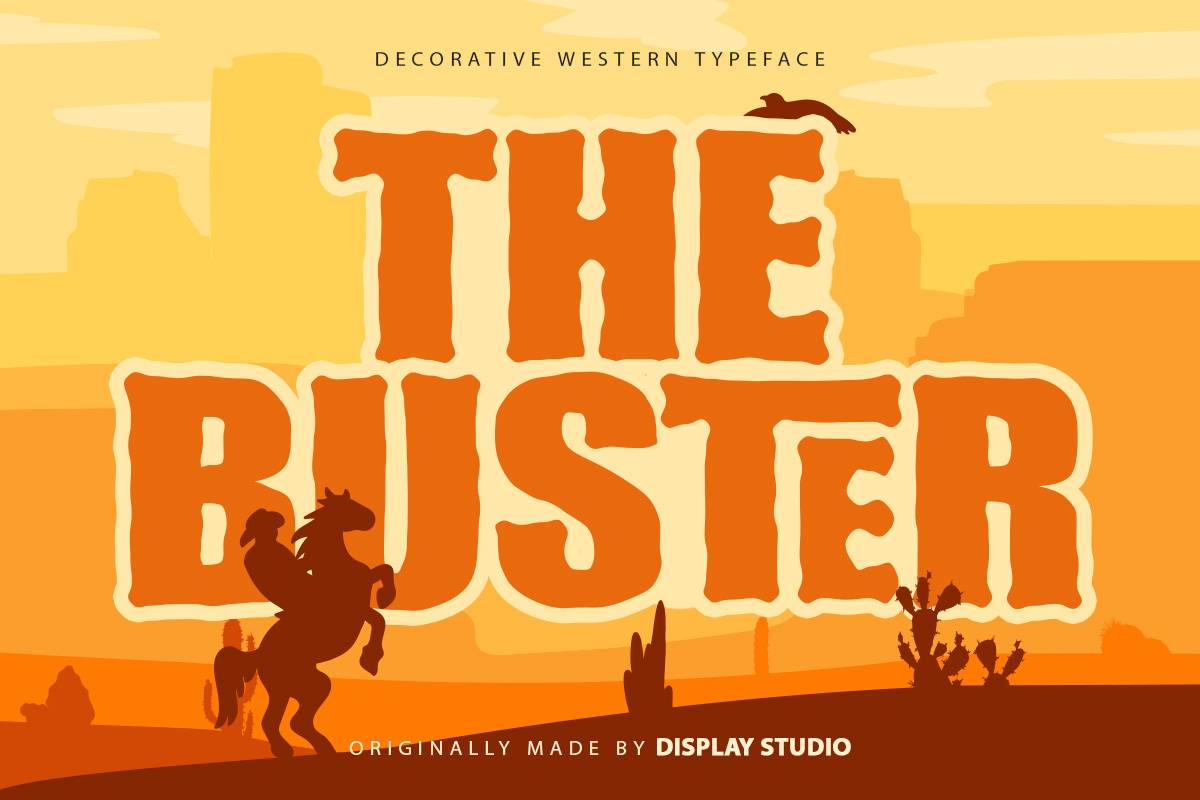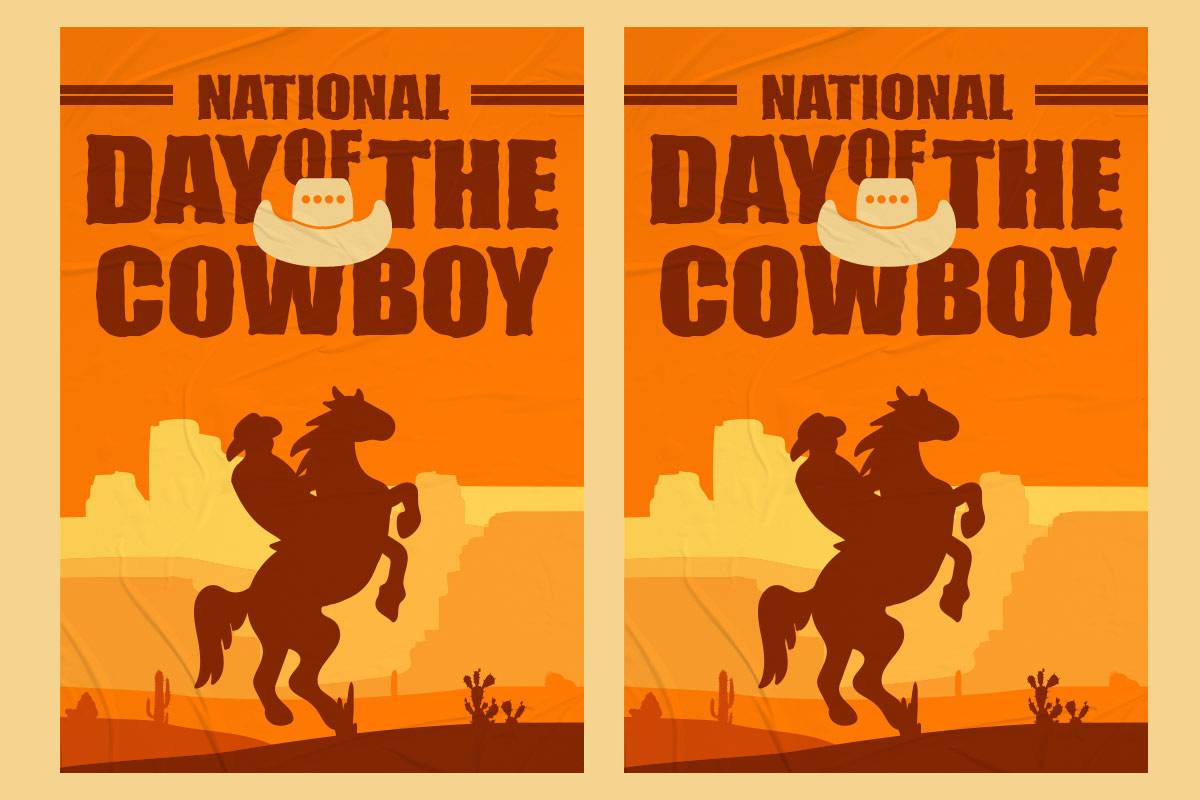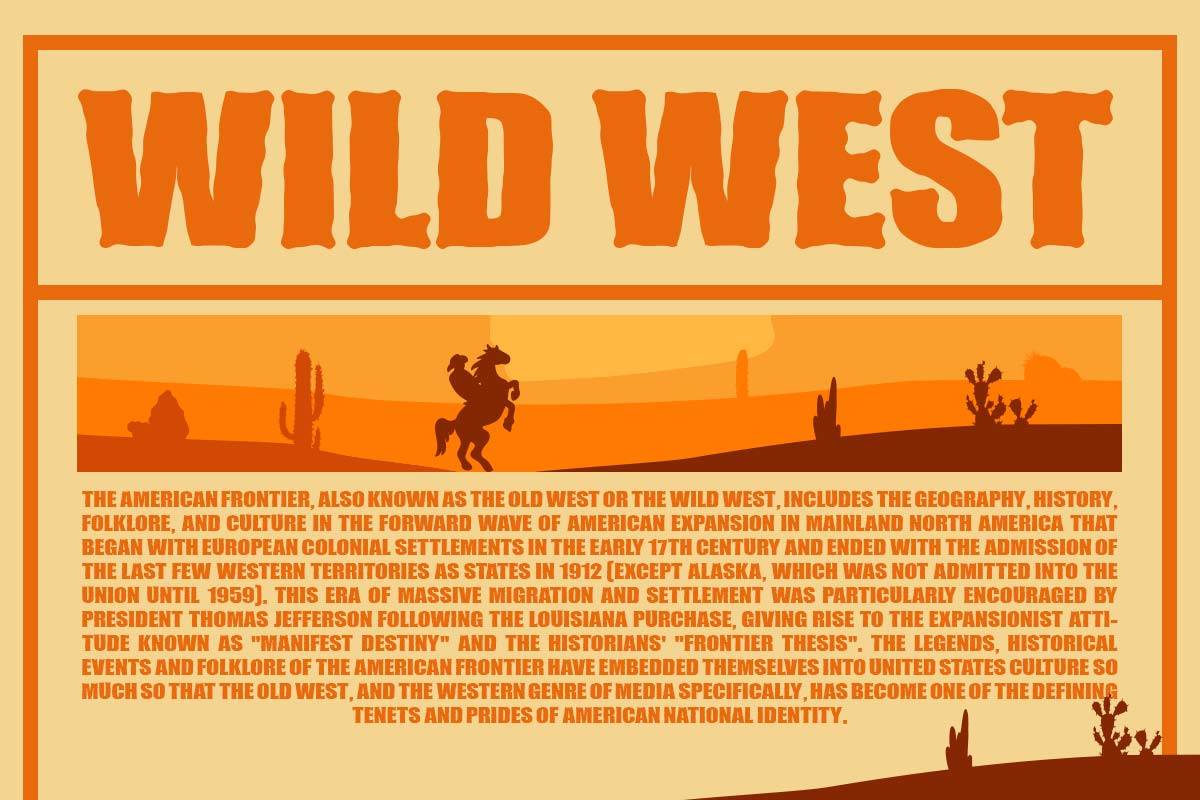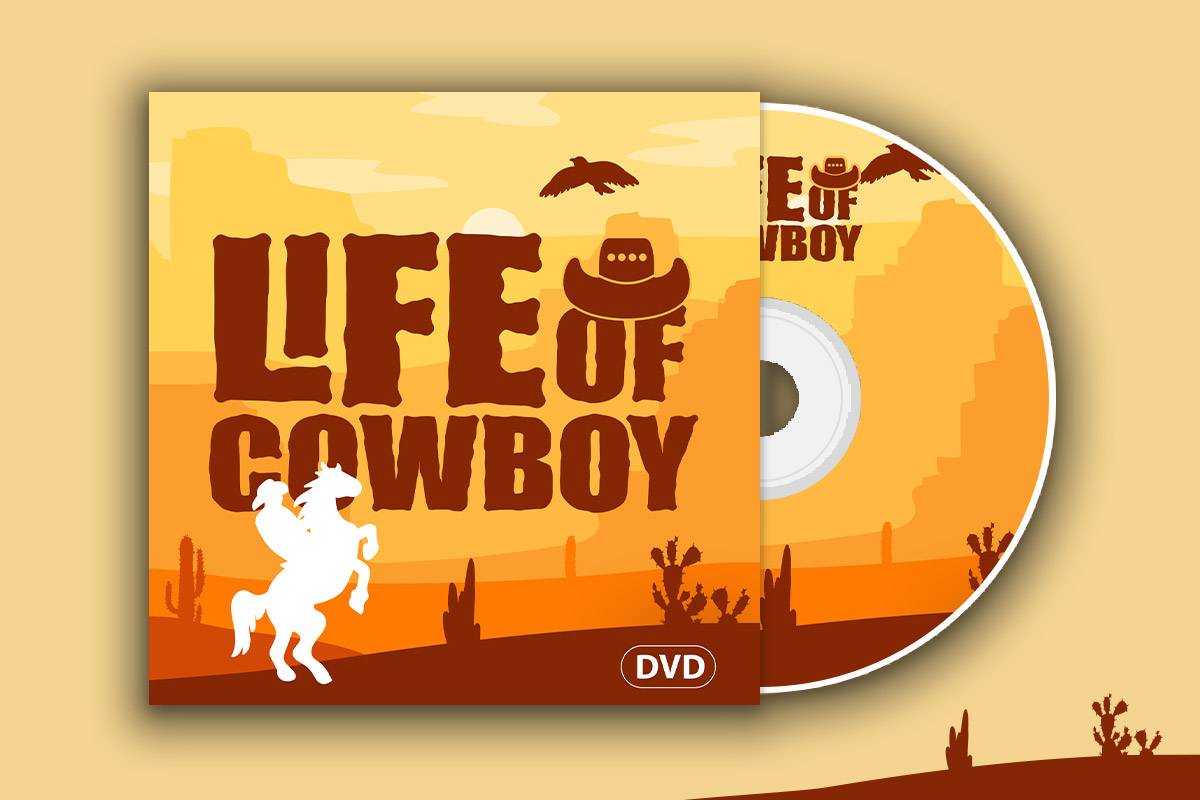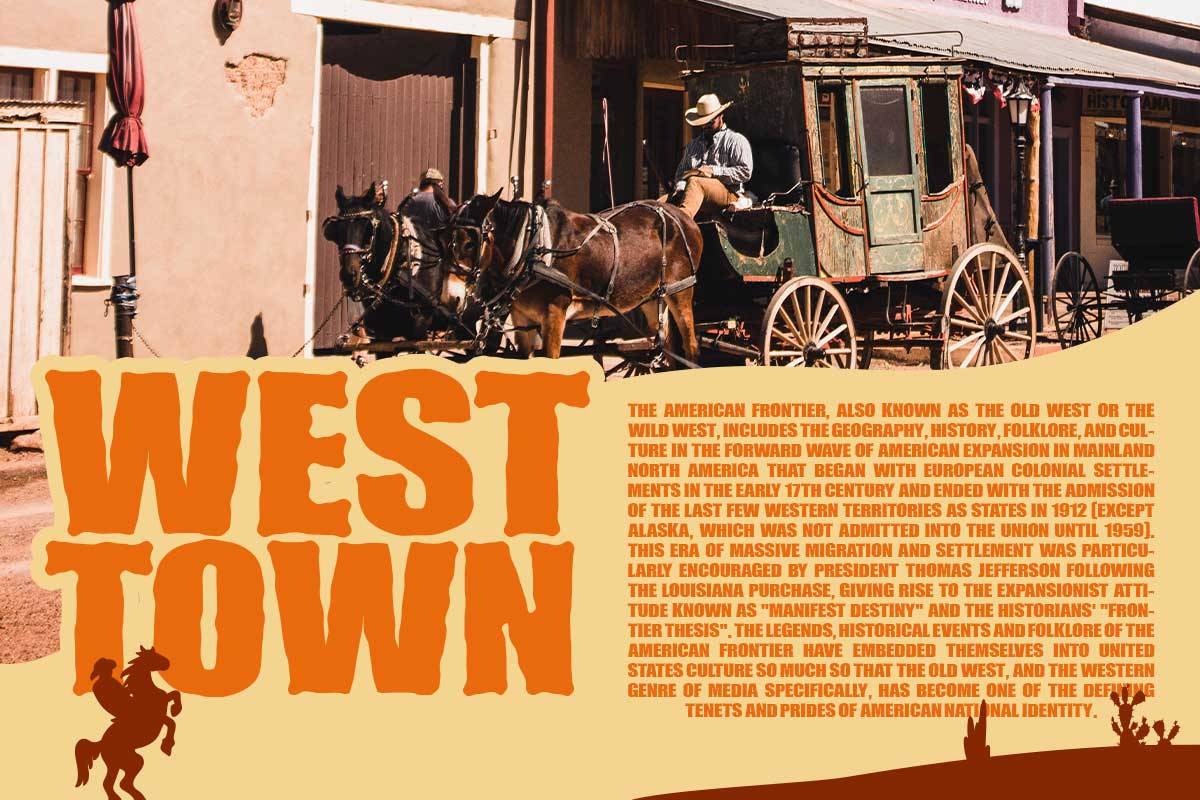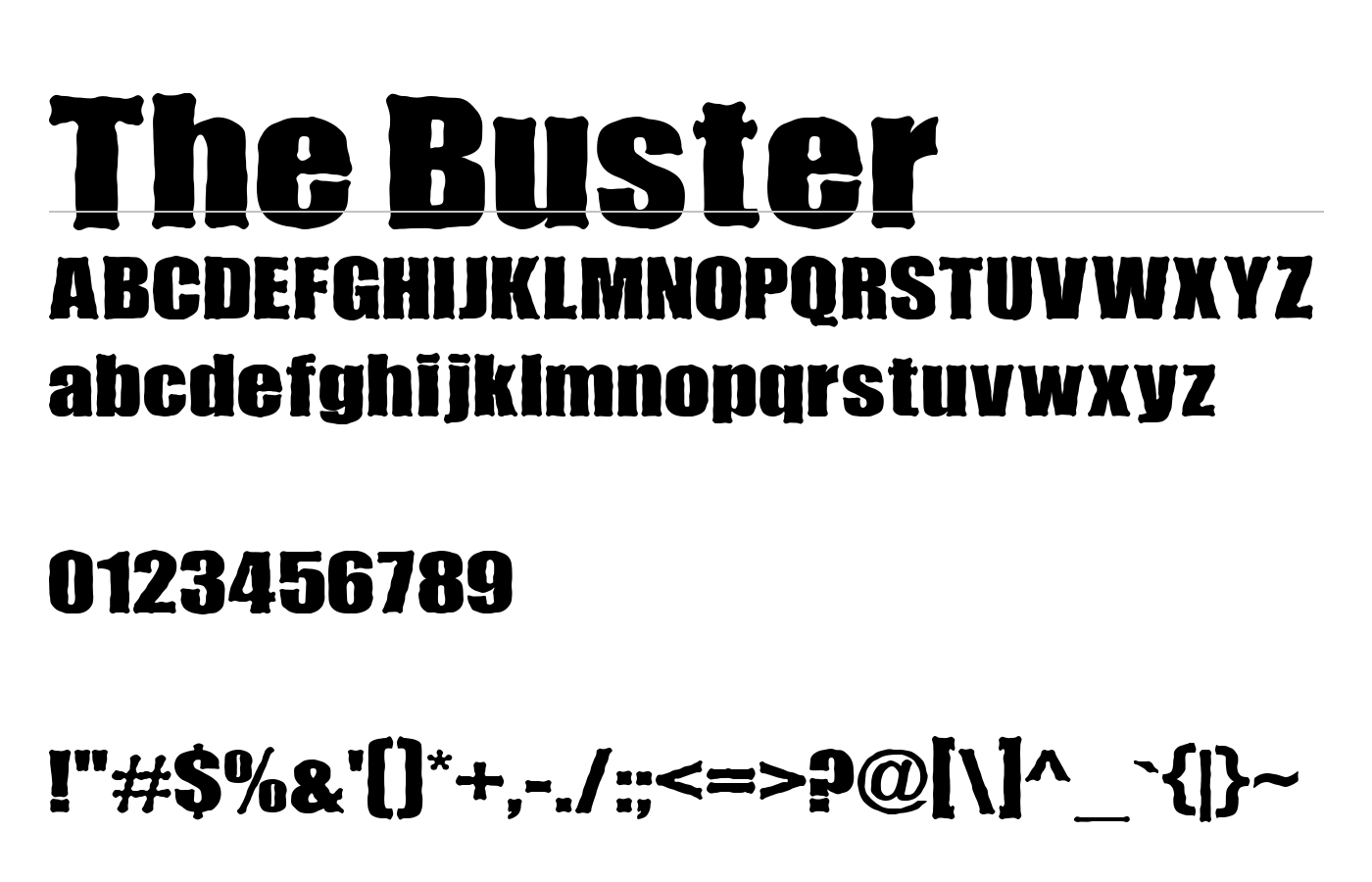
The Buster Font is a bold slab serif typeface with a rugged, vintage feel, characterized by its thick, slightly uneven strokes and strong presence. Its high contrast and textured edges give it a handcrafted, western-inspired look that brings a sense of adventure and boldness, making it perfect for eye-catching headlines, logos, and packaging in playful or retro-themed designs. This font works well when you want to convey strength and character with a touch of nostalgia.
The Buster Font
About The Buster Font
| Font family | The Buster Font |